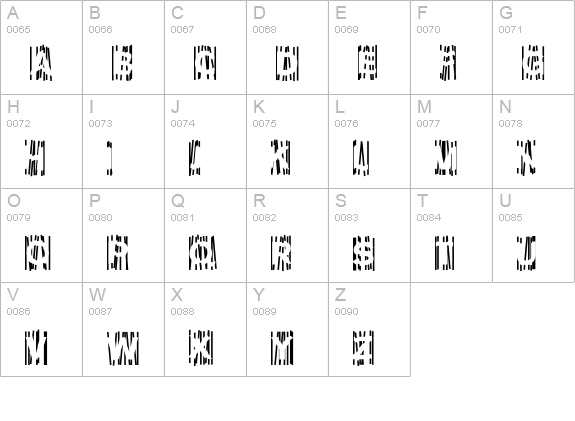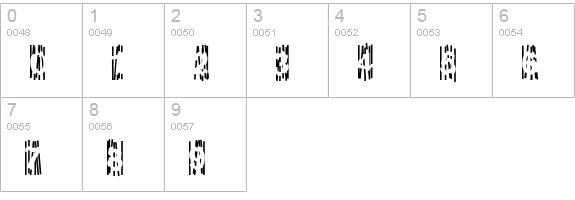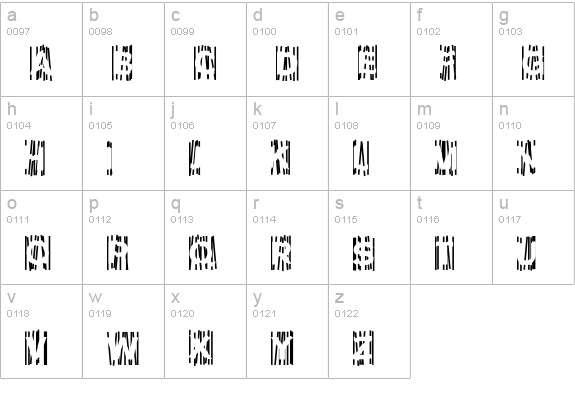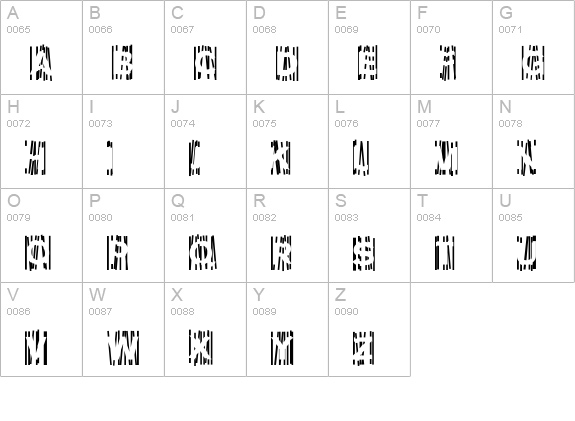
Ollie-NotGuilty Font Details
Introducing Ollie-NotGuilty font, a modern and stylish typeface designed to make a statement in your projects. With its sleek lines and contemporary aesthetic, Ollie-NotGuilty exudes sophistication and charm. This versatile font is perfect for various design applications, from branding to packaging, posters to websites. The best part? Ollie-NotGuilty is completely free to download at FontsMarket.com. Yes, you read that right - this premium font is available at no cost, allowing you to elevate your designs without breaking the bank. Don't miss out on the opportunity to enhance your creative projects with Ollie-NotGuilty font. Download it today and let your creativity soar!